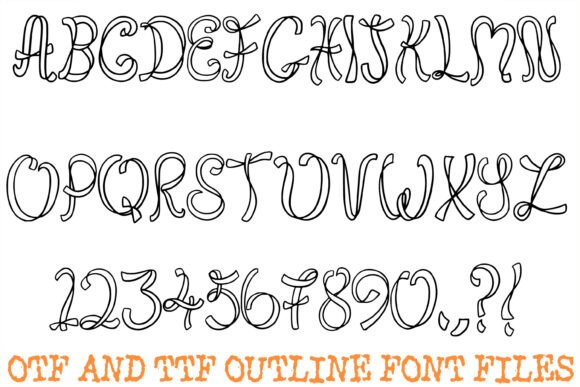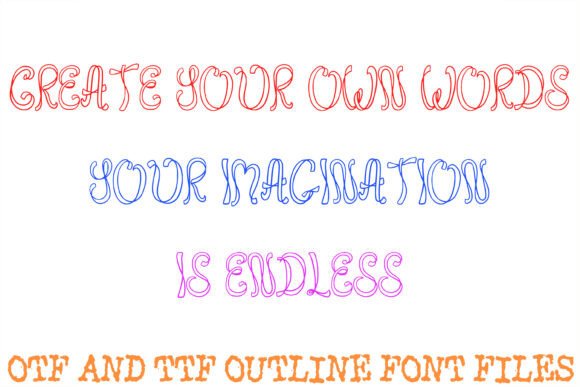
Introduction to Pretty Ribbon Font
Add a layer of festive charm to your designs with Pretty Ribbon, a playful outline font.
Characterized by its fluid, β€œlooping” anatomy that mimics the natural folds of a satin ribbon, this typeface captures an artisanal, DIY aesthetic Each character is hand-drawn with intentional irregularities, ensuring your message feels personal, celebratory, and full of life.
Why Choose Pretty Ribbon Font?
Pretty Ribbon Font offers exceptional quality and versatility, making it a valuable addition to your design toolkit. Whether you’re creating for personal projects or commercial use, Pretty Ribbon Font delivers professional results.